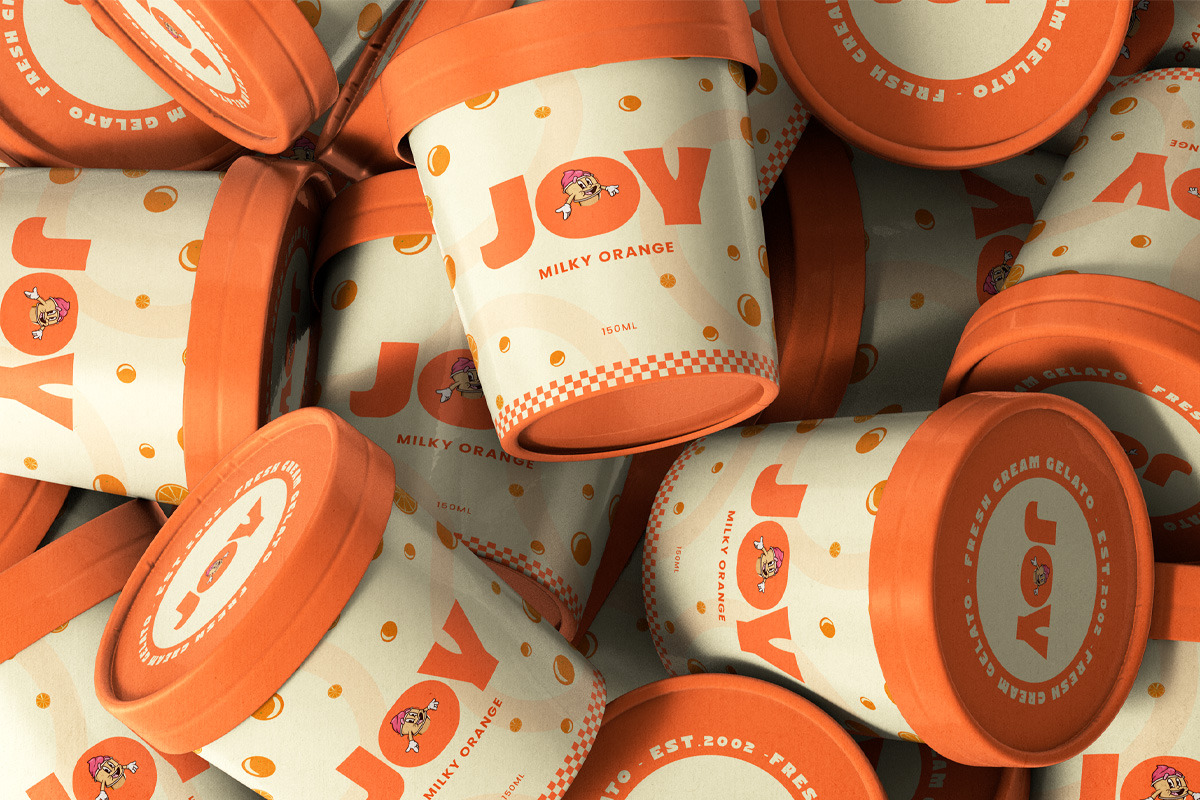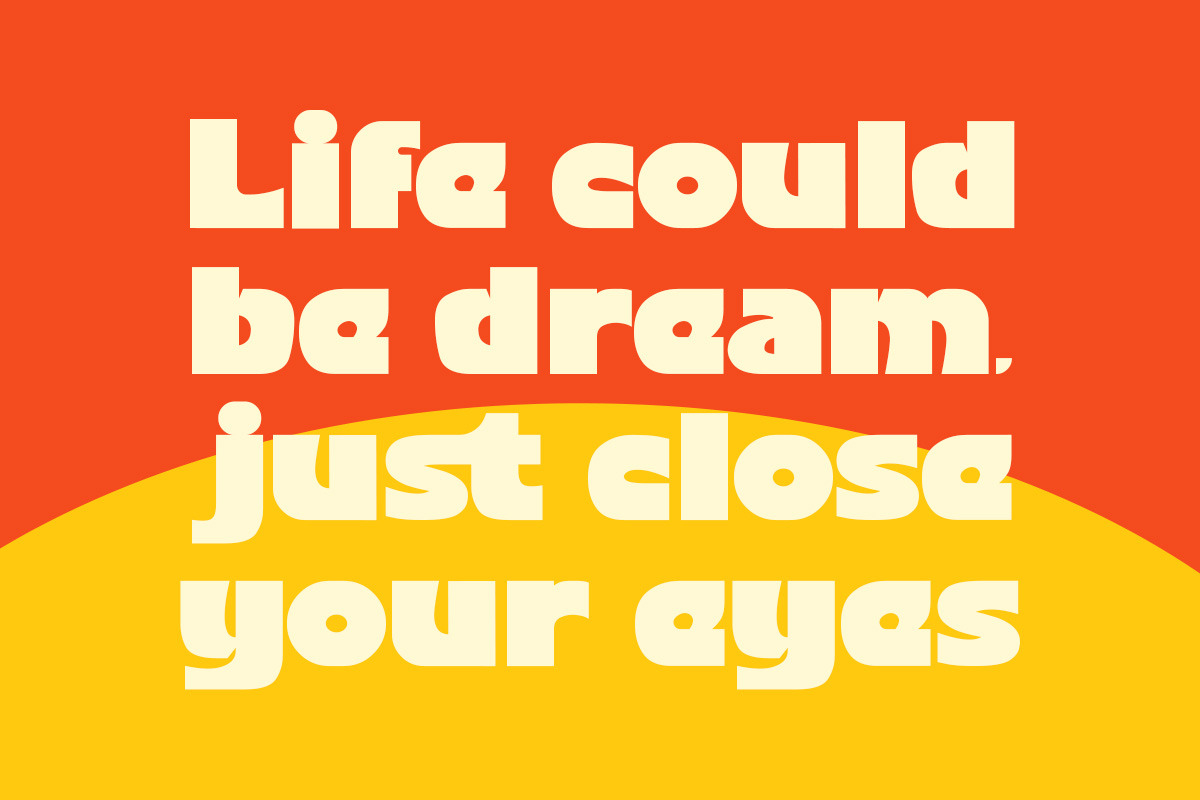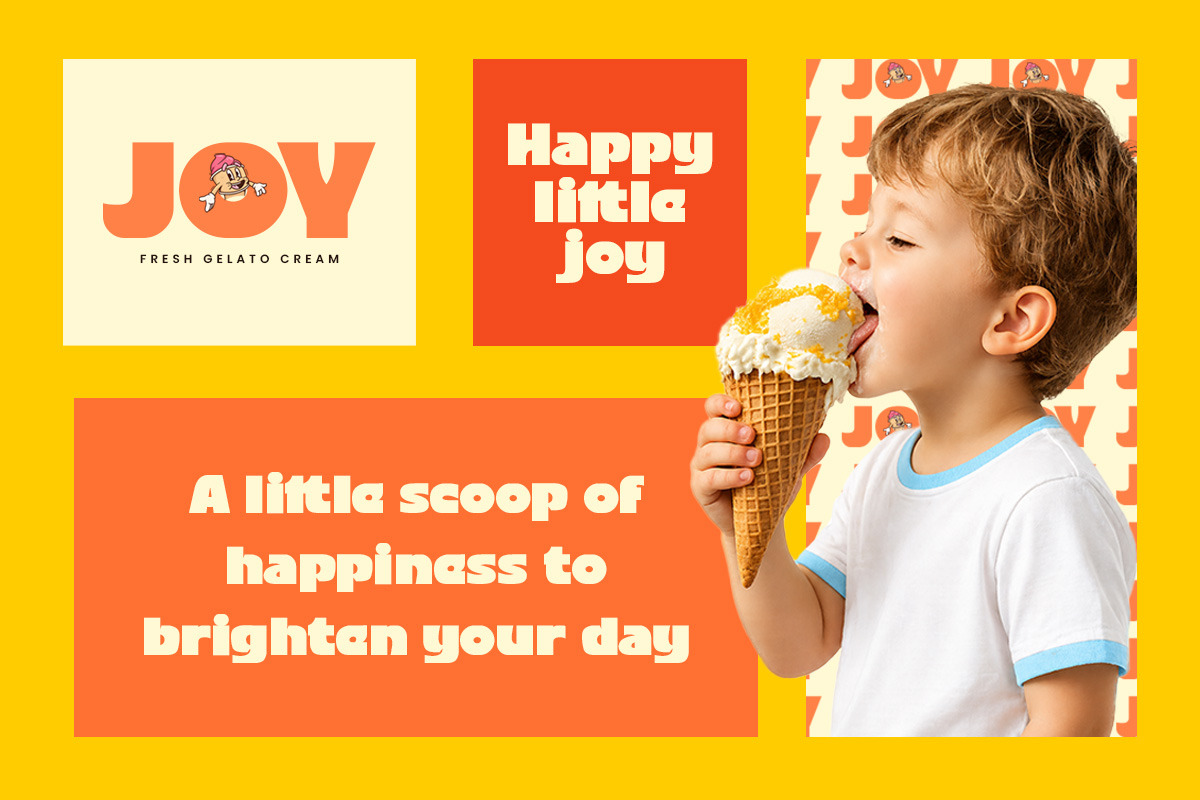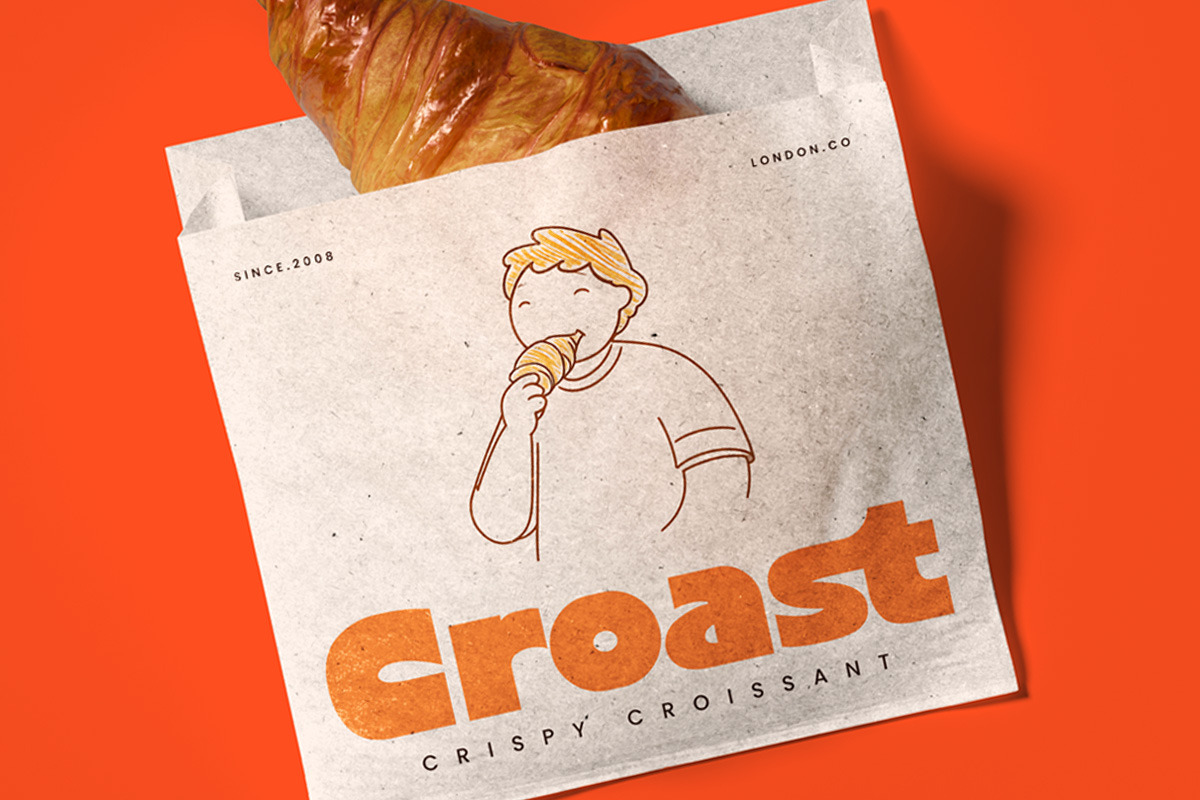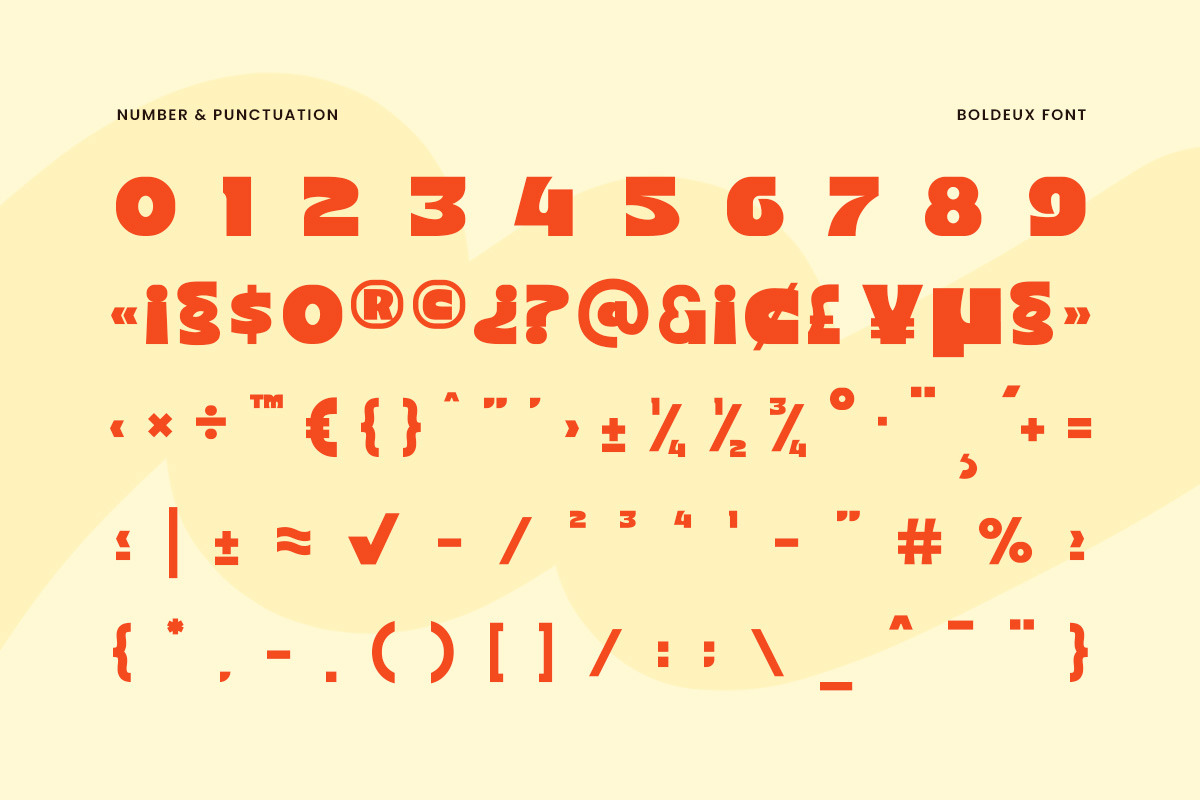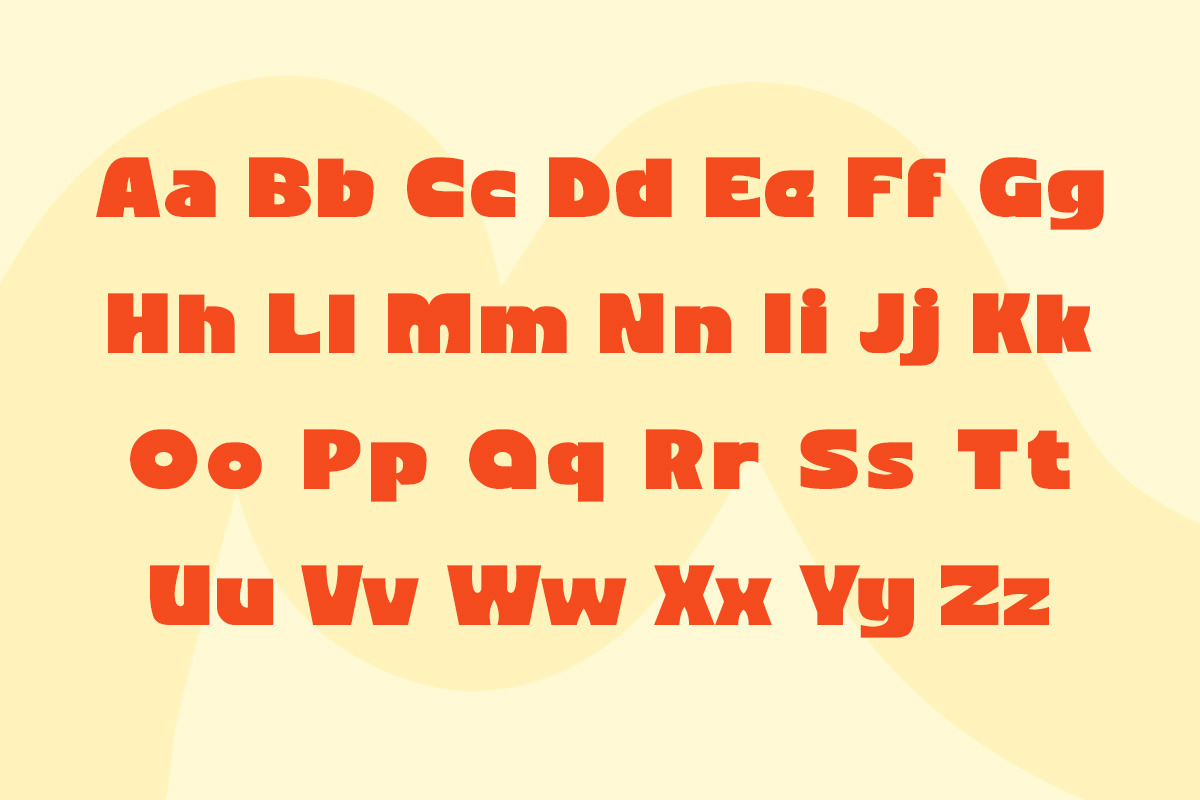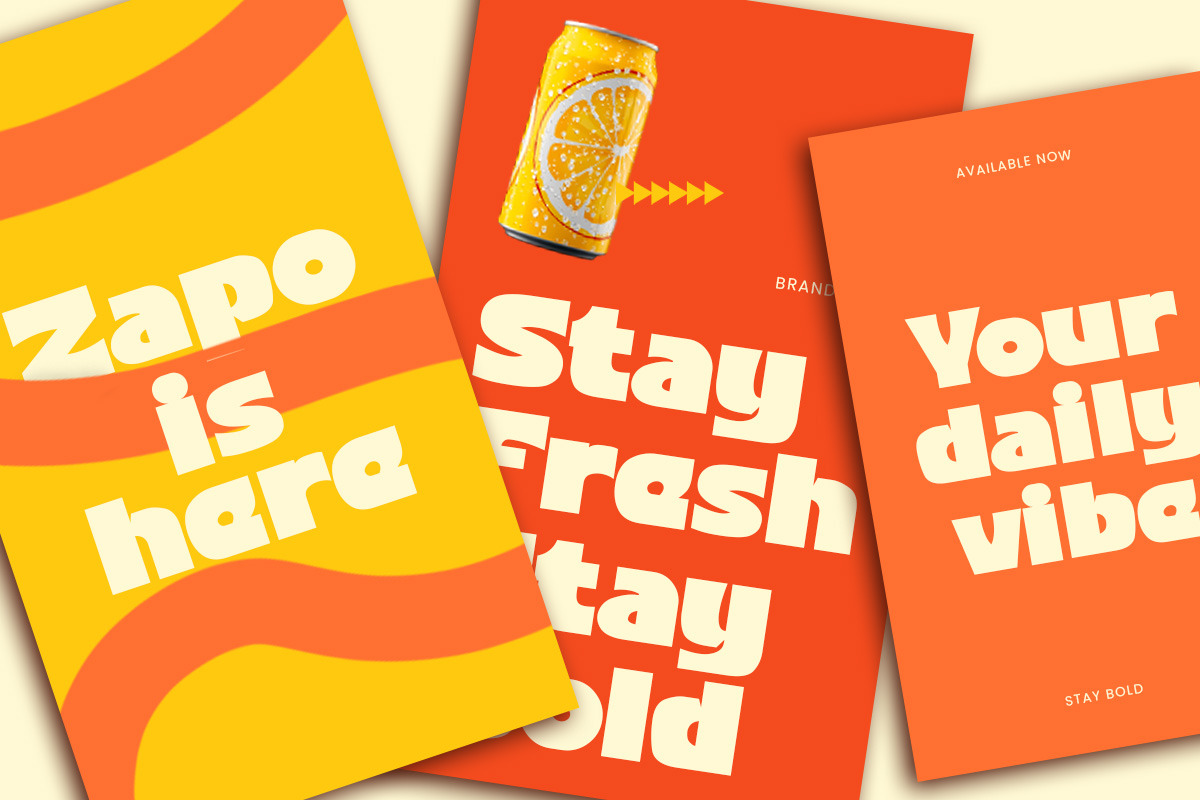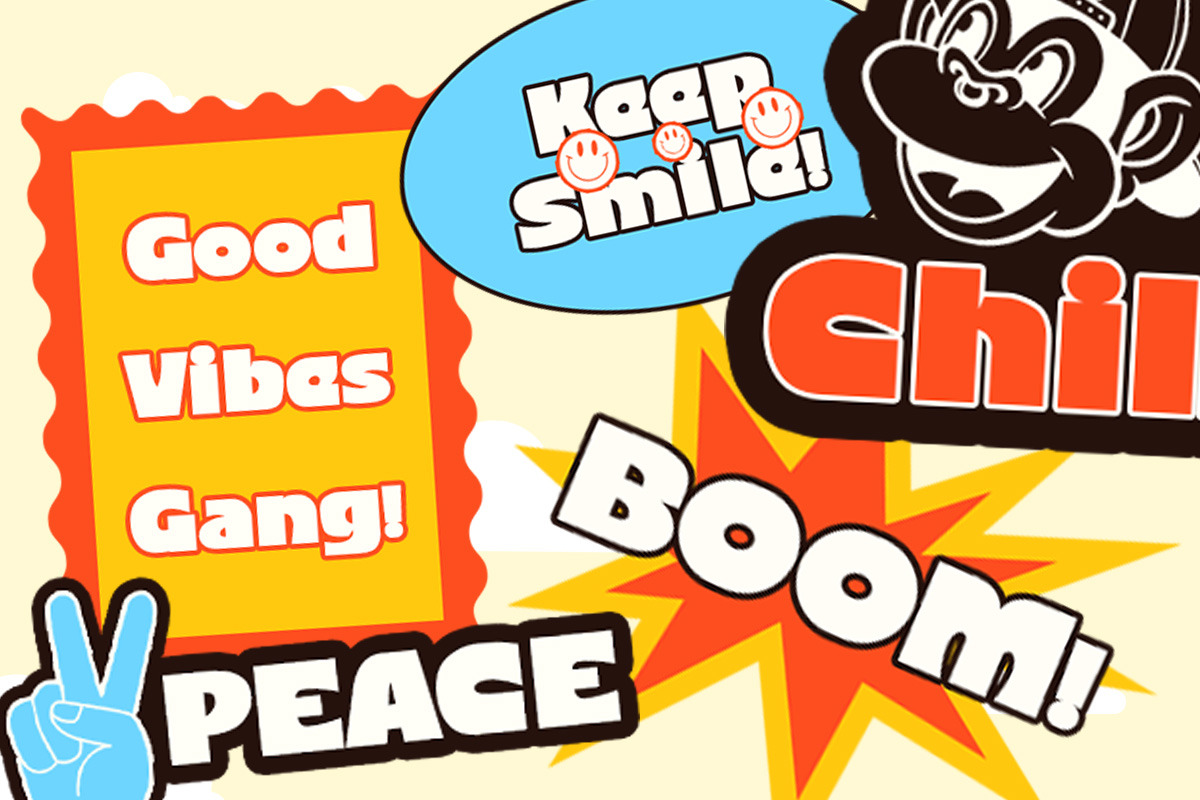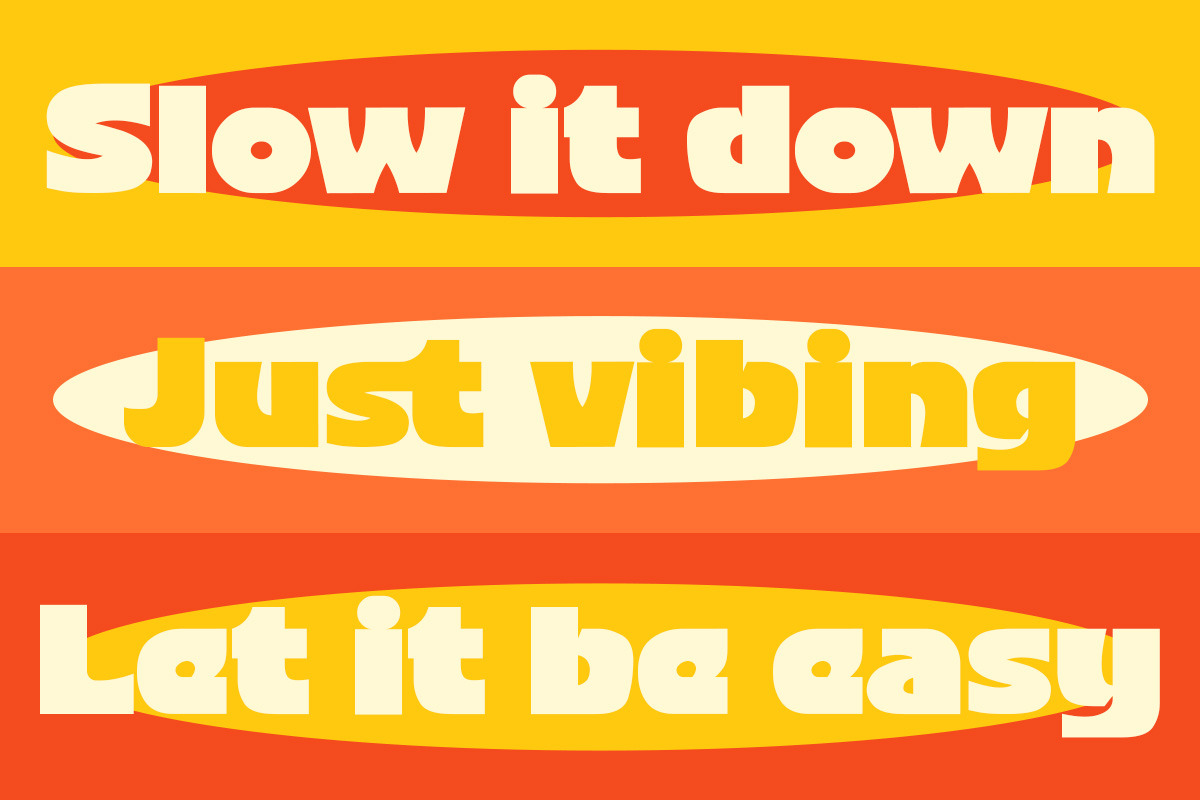
Boldeux Bold Display
Boldeux is a bold display font with a playful retro vibe and strong visual impact. Featuring chunky letterforms, smooth curves, and unique character cuts, this font is designed to grab attention instantly. Inspired by vintage pop graphics and funky street-style typography, Boldeux brings a cheerful and energetic feel to any design.
- Font feature
Uppercase,
Lowercase,
Numerals & Punctuations, Ligature
Multilanguage